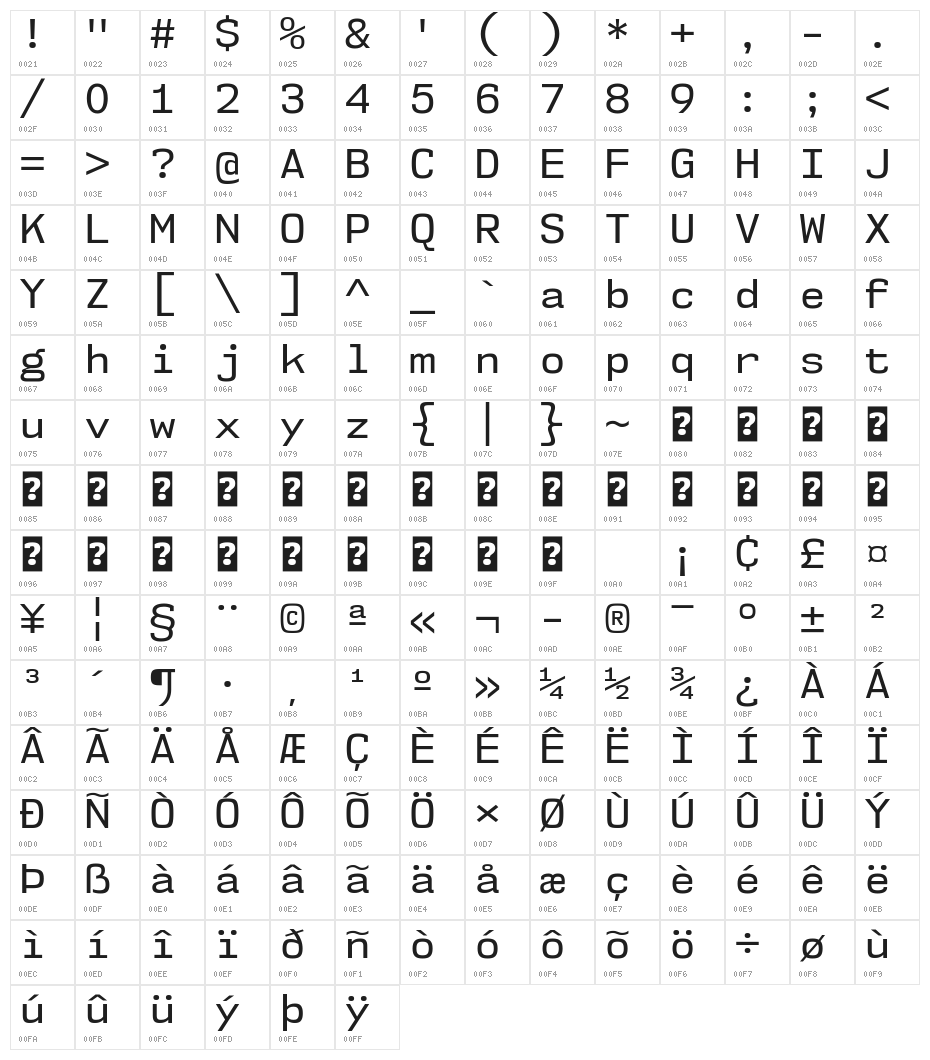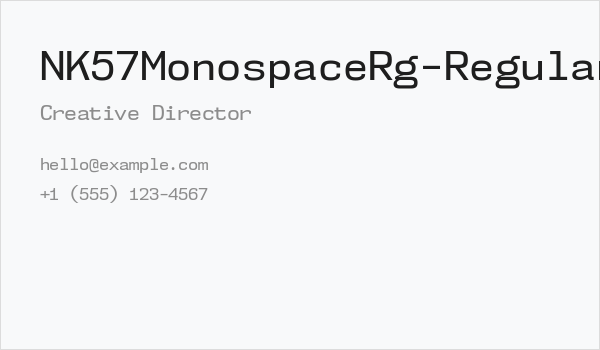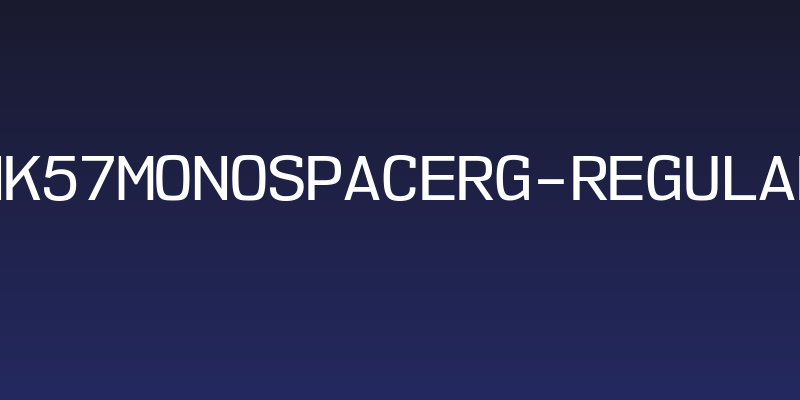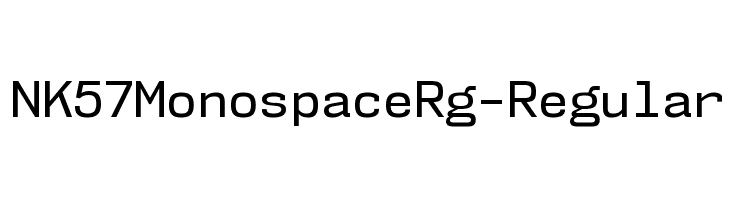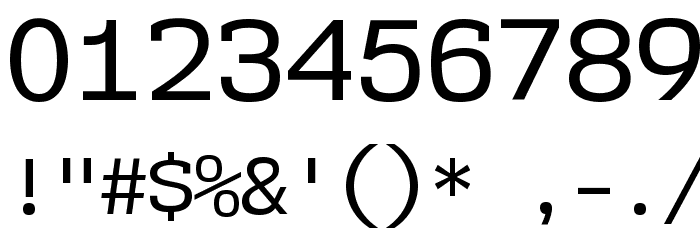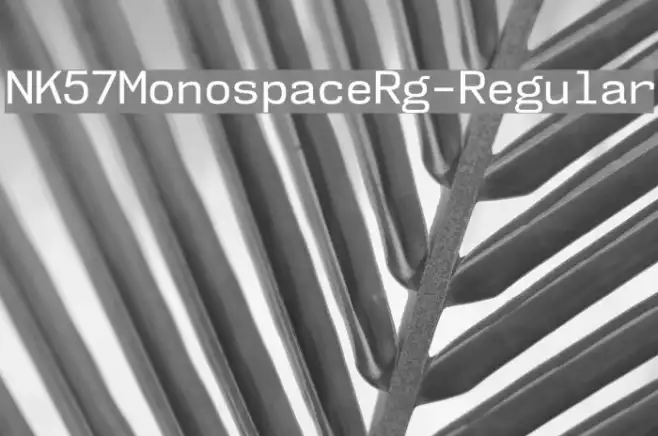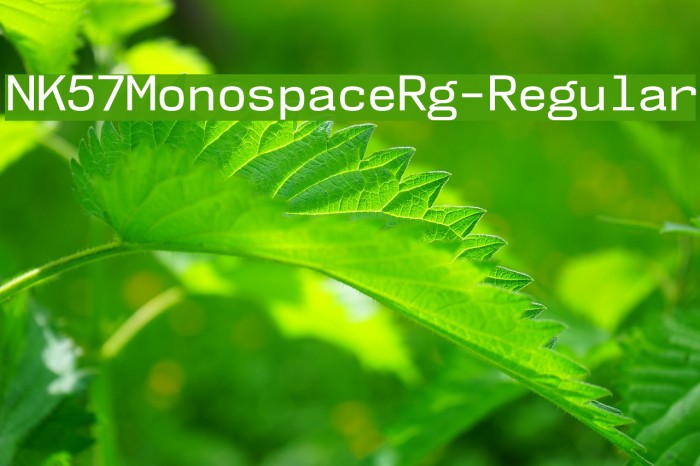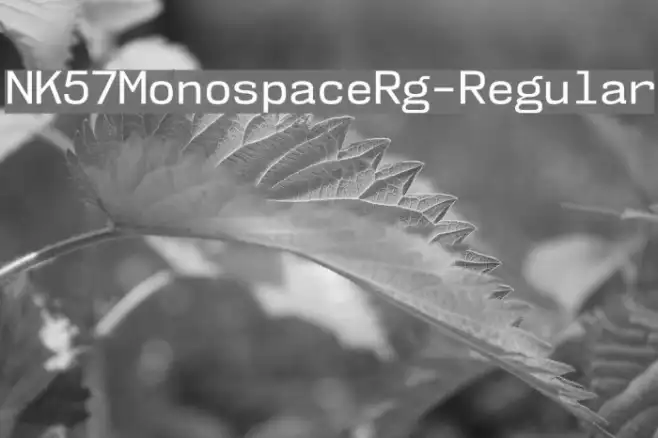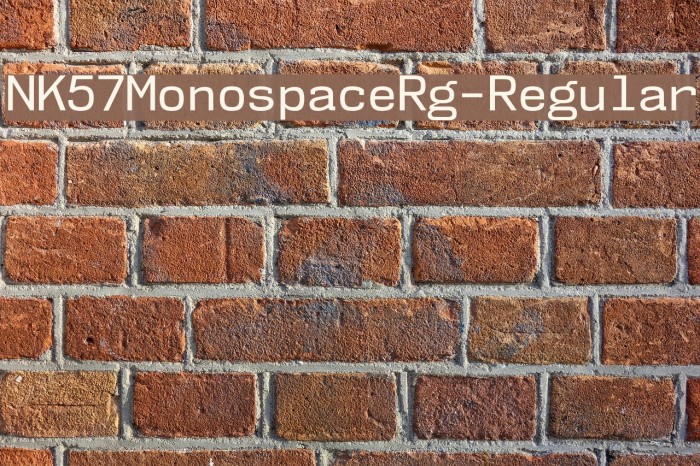
NK57MonospaceRg-Regular Font
NK57MonospaceRg-Regular Description
This font features a clean, modern design with a monospaced structure, ensuring each character occupies the same amount of horizontal space. The characters are well-defined with a geometric influence, providing a sense of uniformity and precision. The uppercase and lowercase letters maintain a consistent height, while the numerals and special characters are clear and easily distinguishable. The overall appearance is straightforward and functional, making it suitable for coding environments or any application where alignment is crucial.
| Use Case | Coding, Technical documentation, Data tables |
| Proposed Projects | Ideal for coding, technical documentation, data tables, and any project requiring precise alignment. |